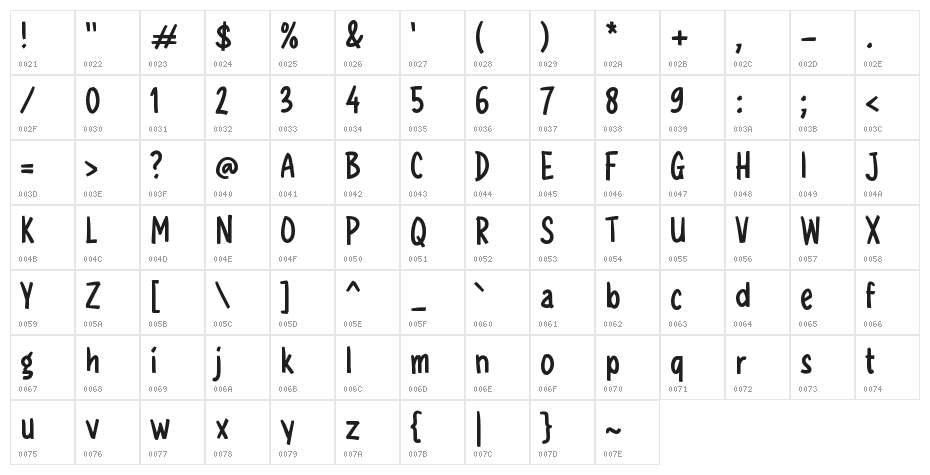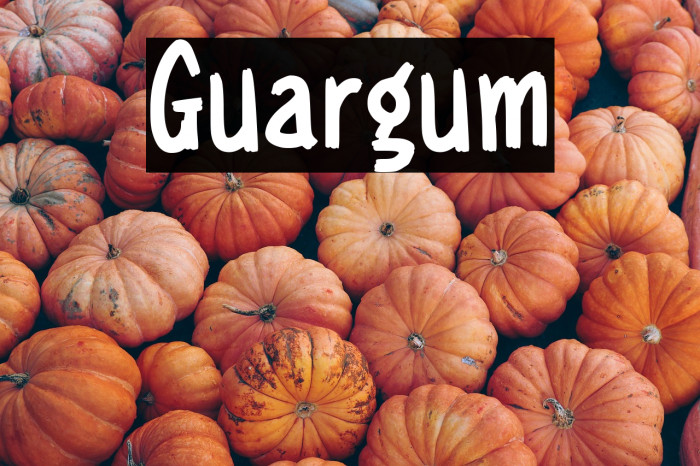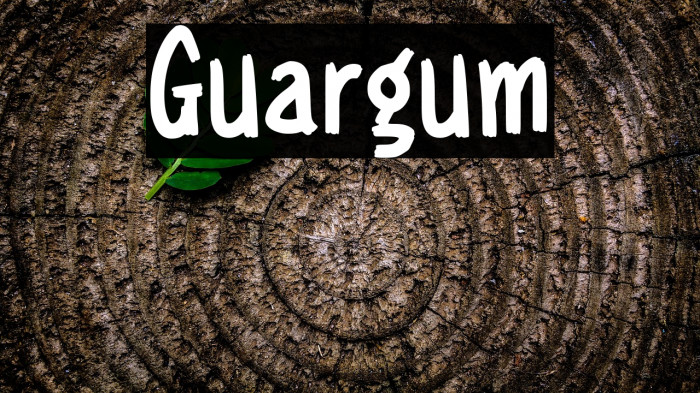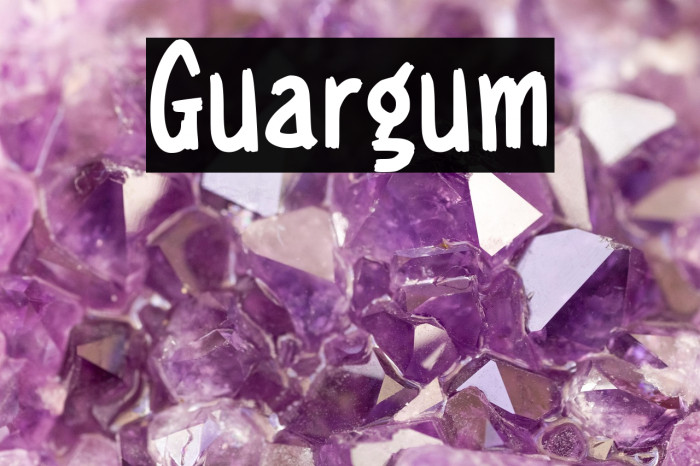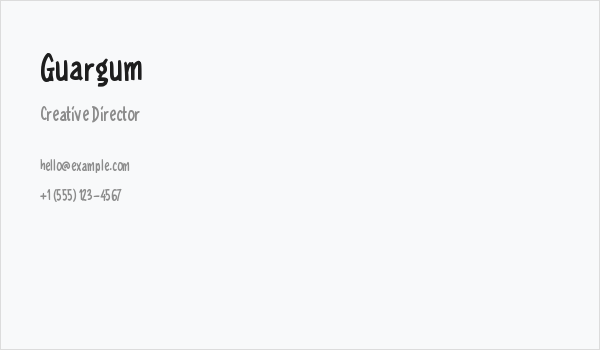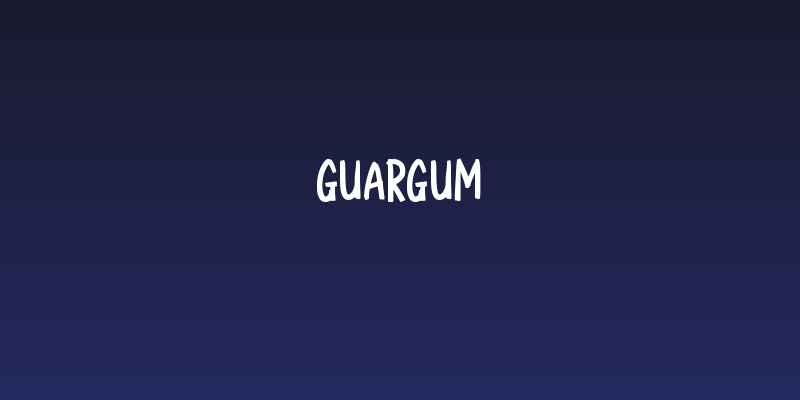
Guargum Font
Guargum Description
This font features a playful and bold handwritten style, characterized by its irregular strokes and casual appearance. The letters are slightly slanted, giving a dynamic and energetic feel. The uppercase and lowercase letters are well-proportioned, maintaining a consistent flow throughout. Numbers and special characters are included, matching the overall informal and friendly aesthetic. The font's unique personality makes it stand out, ideal for projects that require a touch of creativity and approachability.
| Proposed Projects | Ideal for children's books, greeting cards, playful branding, and social media graphics. |